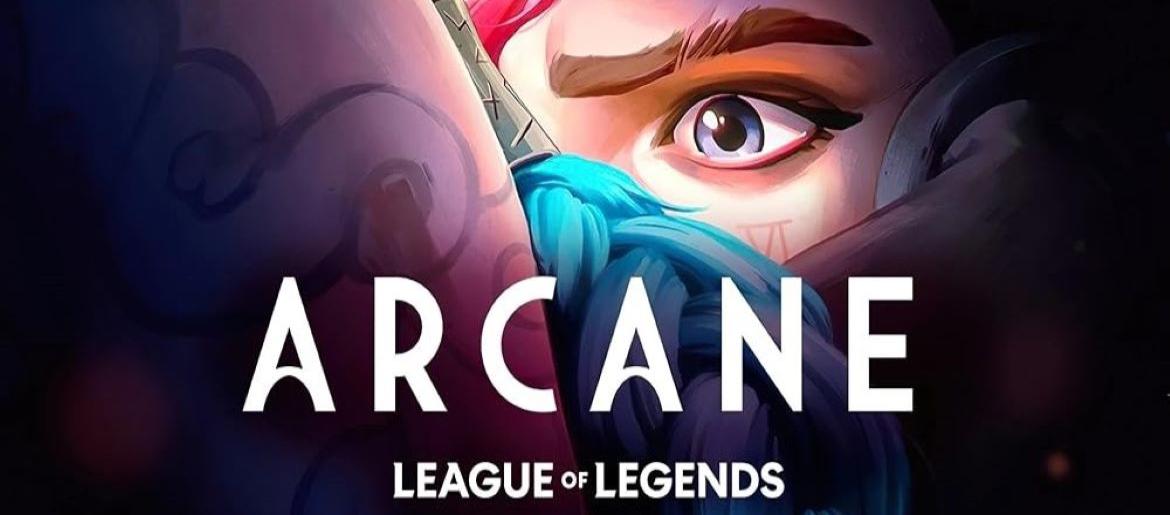
Arcane Font
Arcane Font captures the elegance and mystery of the world of Piltover and Zaun. The logo uses a bold, serif style that feels both ancient and refined, perfectly reflecting a universe of magic, invention, and innovation. For a free alternative, designers can use Chequered Ink to achieve a similar aesthetic. You can also explore more free fonts.
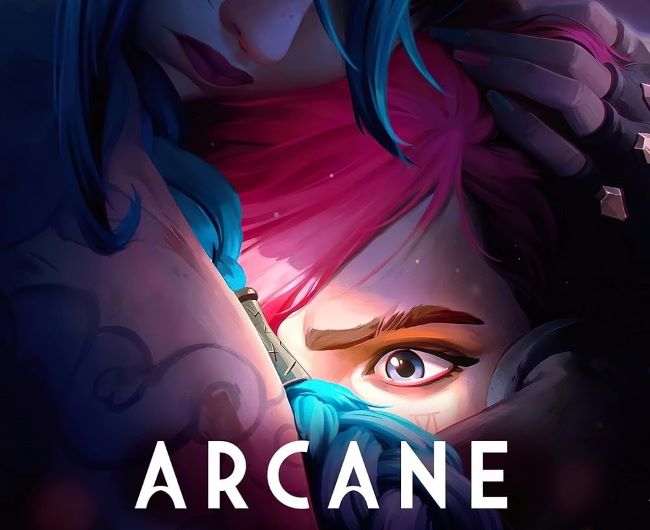
About Arcane
Arcane is an animated fantasy series set in the universe of the popular game League of Legends. Premiering in 2021 on Netflix, the show explores the complex relationships between characters from the cities of Piltover and Zaun, blending magic, technology, and political intrigue. With its stunning animation, rich storytelling, and emotional depth, Arcane has become a cultural phenomenon, appealing to both fans of the game and newcomers alike.